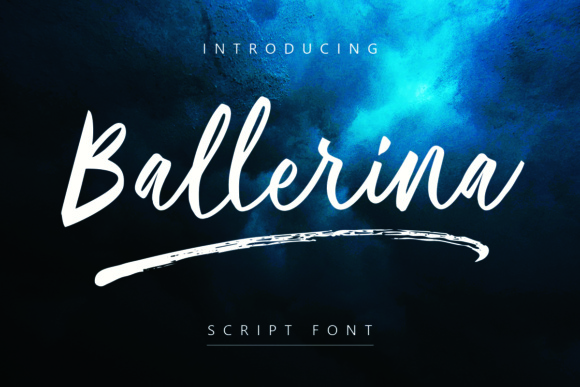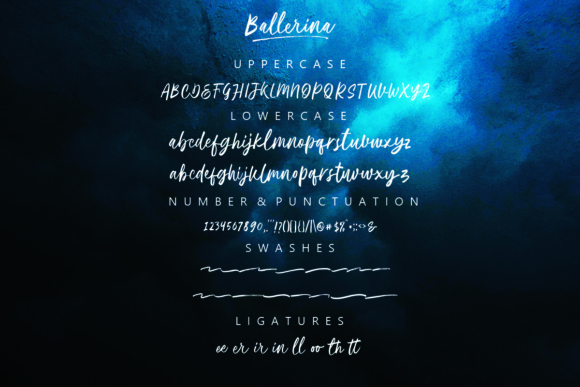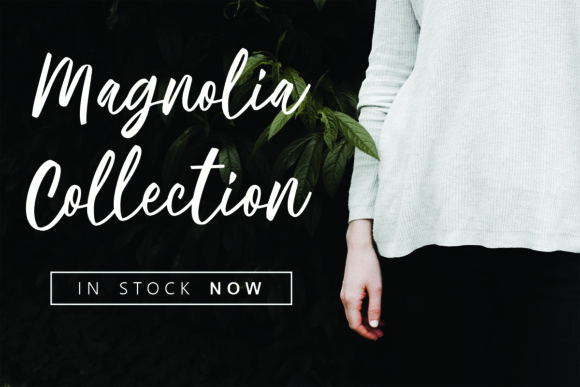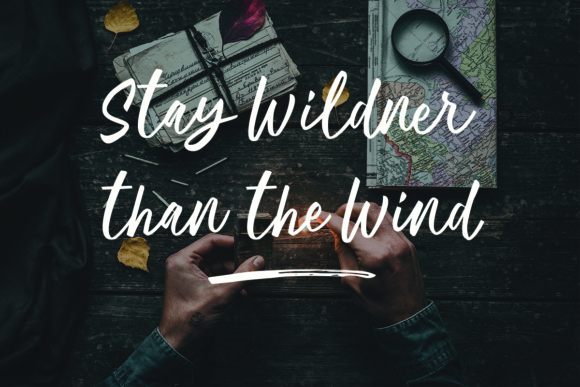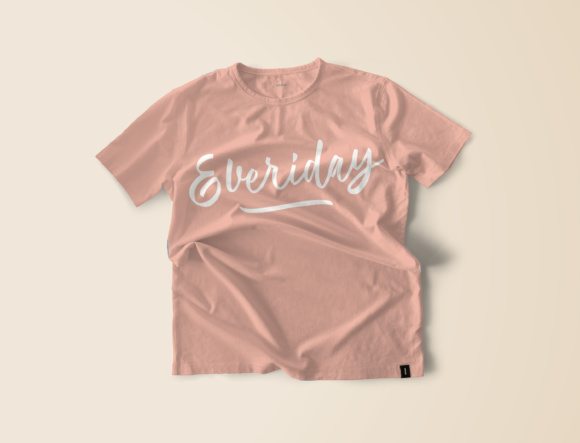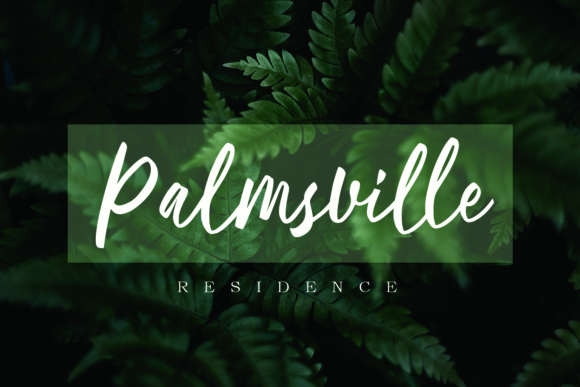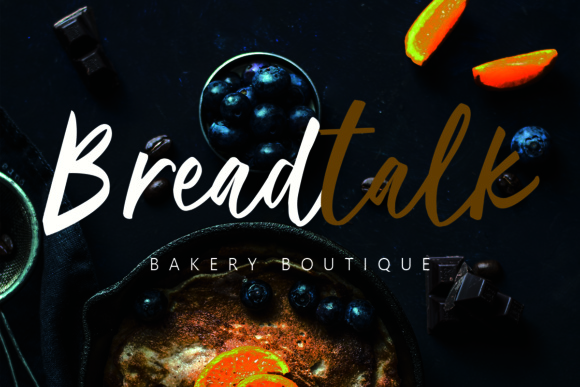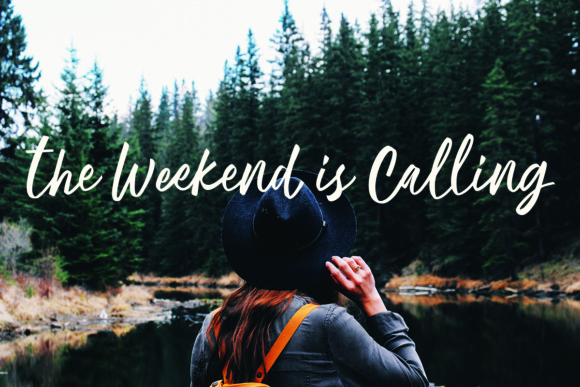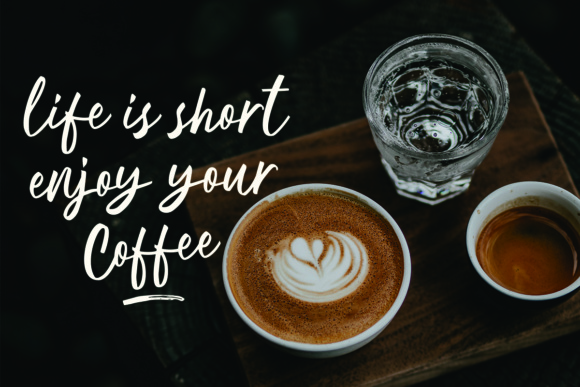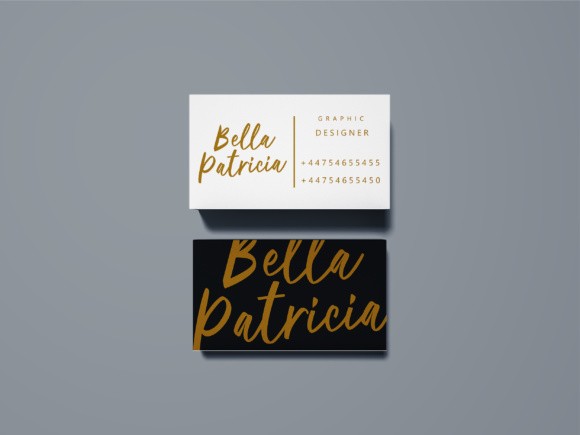
HomeScript FontsBallerina Font Script Fonts Ballerina Font FacebookXPinterestWhatsApp Ballerina Font Poster 2 Ballerina Font Poster 3 Ballerina Font Poster 4 Ballerina Font Poster 5 Ballerina Font Poster 6 Ballerina Font Poster 7 Ballerina Font Poster 8 Ballerina Font Poster 9 Ballerina Font Poster 10 About Ballerina Font The Ballerina is a elegant script font. Each letter is hand written and will add a modern feel to your design DOWNLOAD NOW People also explored Bones and Spine Font Enjoy Party Font House Halloween Monogram Font Hey Angelyn Font Vogan Font Winter Special Font Big Party O2 Green Font Incorporate Font Dashaya Font 266 0 TagsBallerina Font Previous articleRealistic FontNext articleRoyal Voyage Font LEAVE A REPLY Cancel reply Comment: Please enter your comment! Name:* Please enter your name here Email:* You have entered an incorrect email address! Please enter your email address here Website: Save my name, email, and website in this browser for the next time I comment. Personal Use Free Mahisya Personal Use Free Read more about this font Orchid Personal Use Free Read more about this font Soria Personal Use Free Read more about this font Planning Personal Use Free Read more about this font BLOG Exploring Font Trends Shaping Communication in the Digital Era Fonts, like all design elements, are subject to trends. They play a crucial role in communicating a brand's personality,... Where to Buy American Fonts Online in 2024 Elegant Wedding Invitation Fonts – Handwritten & Script Fonts Best Fonts for YouTube Videos: Make Your Thumbnails Stand Out